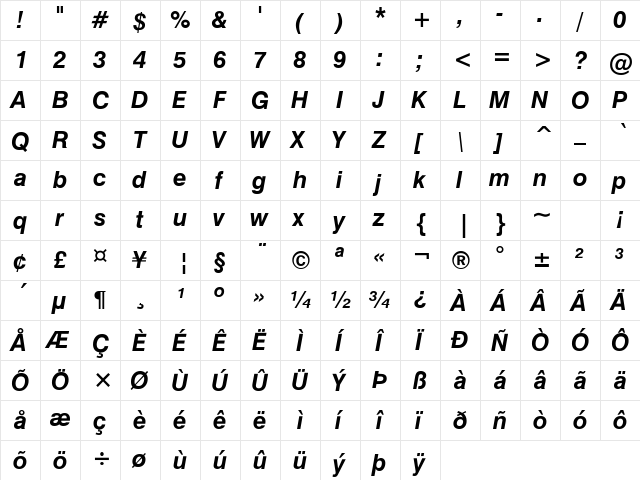
Halvett Bold Italic
Design Context for Halvett Typeface
Halvett is a composed and adaptable typeface that performs quietly and consistently across a wide range of design contexts. Its italic angle brings a sense of urgency and motion to the letterforms. The heavy weight commands attention and anchors typographic hierarchies.
Pro Tip: Use Halvett for emphasis, pull quotes, and subheadings where its slanted energy can add rhythm to the layout.